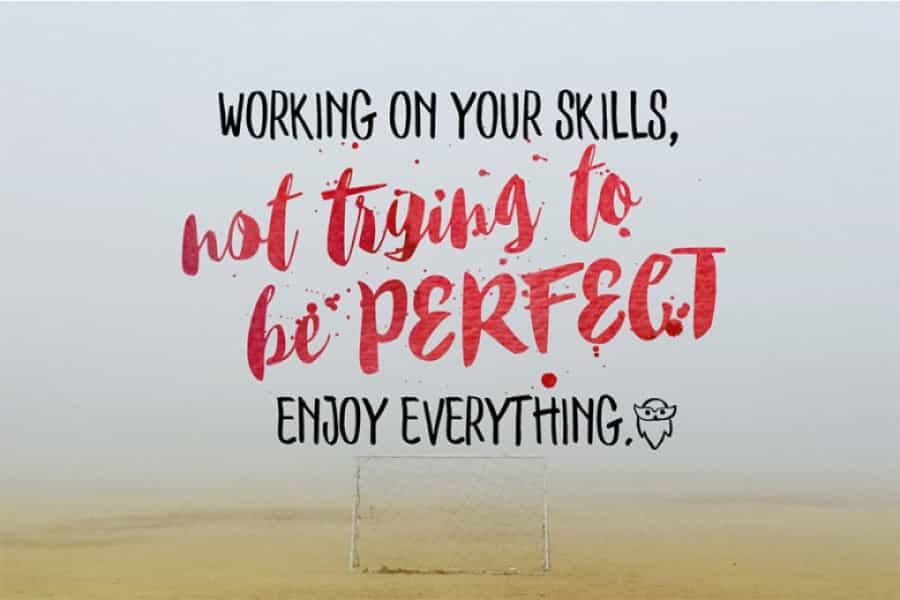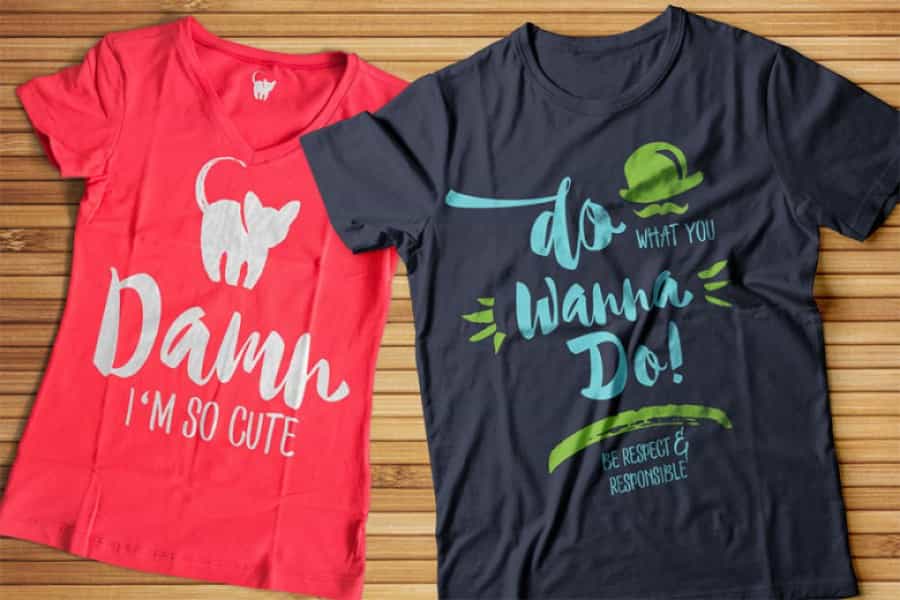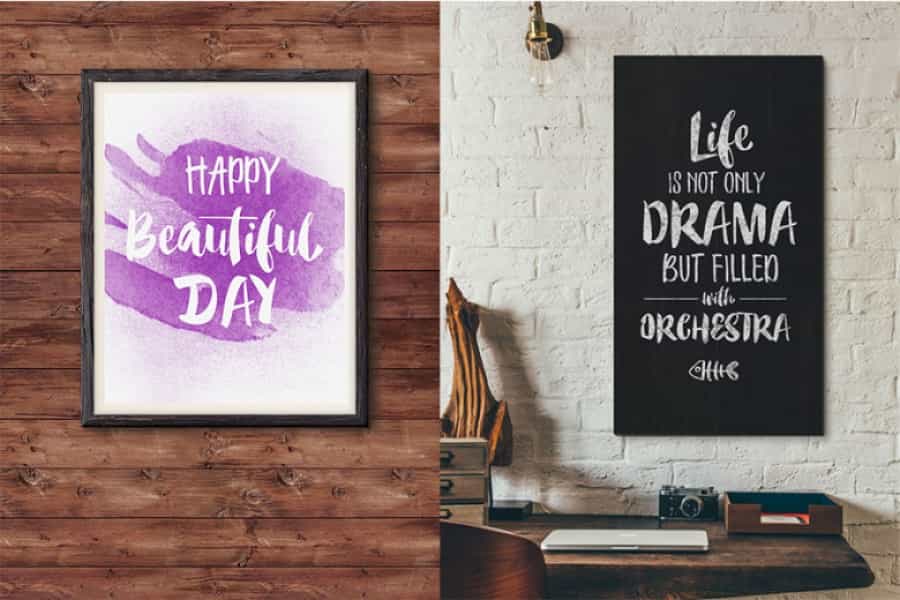
Beautiful font Stonestick is my new collection, I would like to present to your attention. Slightly bad or blurred brush font, going with the thick and smooth strokes. It is shipped with Stone, a companion font, available in cap height styles called Stonestick Caps. to create a more intense and muscular figure to fit for the requirements of your design goals. In addition Stonestick also be equipped with Bonus Extras: Fonts, Swash and splatter for the improvement of imagination.